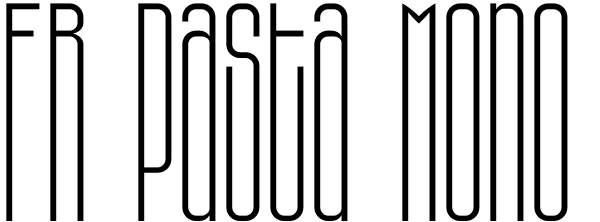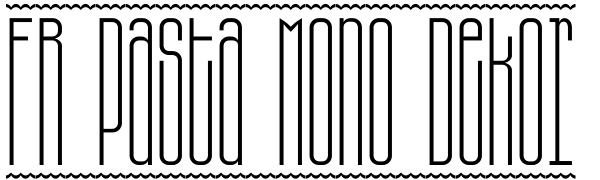
FR Pasta Mono
FR Pasta Mono family is an offspring of the well received free font FR Pasta Simpla (whick can be download form here: http://www.fabergraph.hu/new/pasta.php). FR Pasta Mono family is a monospaced, tall typeface capable to set playful, elegant and...